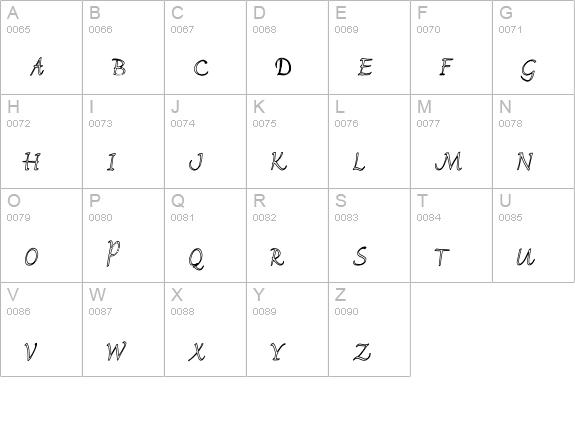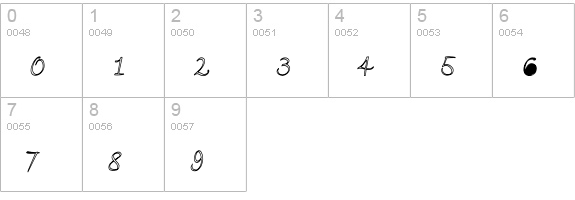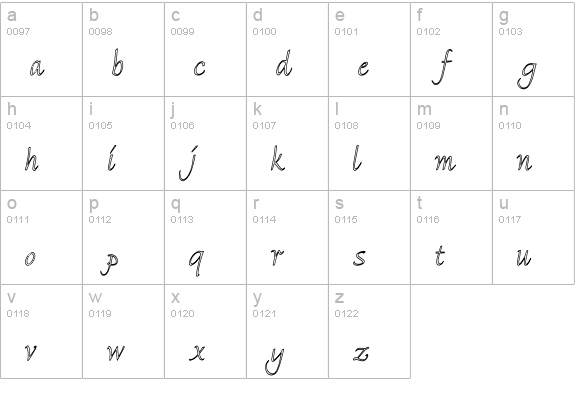
FlorenceHC is a stunning and elegant font that exudes sophistication and style. With its delicate curves and unique flourishes, this font is perfect for adding a touch of luxury to any design project. Whether you're creating wedding invitations, branding materials, or social media graphics, FlorenceHC will elevate your work to the next level. The best part? FlorenceHC is completely free to download at FontsMarket.com. You can easily access this beautiful font and start using it in your projects right away. Don't miss out on the opportunity to add a touch of class to your designs with FlorenceHC. Download it now and see the difference it can make!